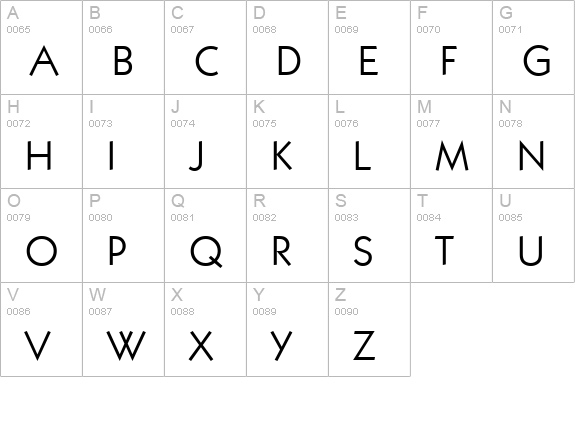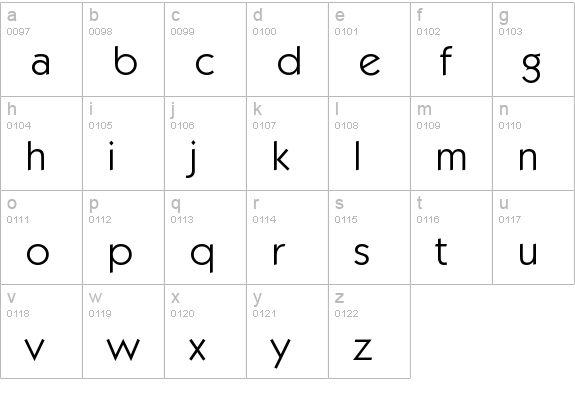
KoblenzSerial-Light-Regular is a refined, elegant variant in the KoblenzSerial typeface family \xE2\x80\x94 well suited to elegant body text, refined sub-headings, and luxury branding.
KoblenzSerial-Light-Regular font is a modern and elegant typeface that exudes sophistication and simplicity. Its clean lines and balanced curves make it suitable for a wide range of design projects, from branding to editorial design. The light weight of the font adds a touch of delicacy, making it perfect for conveying a sense of refinement and elegance. What makes KoblenzSerial-Light-Regular font even more appealing is that it is available for free download at FontsMarket.com. This means that you can easily access this versatile and stylish font to enhance your creative projects without any cost. Whether you're working on a logo, website design, or print materials, KoblenzSerial-Light-Regular font is sure to elevate your designs with its timeless appeal. Download it today and add a touch of sophistication to your next project.